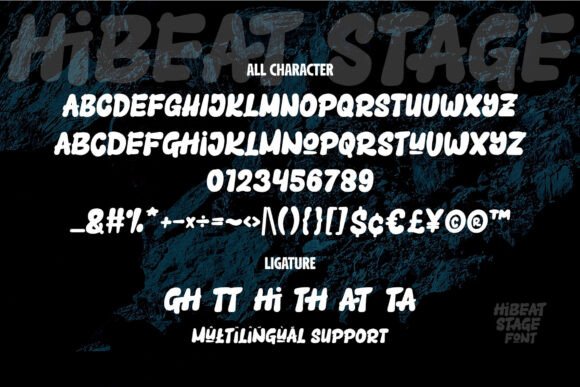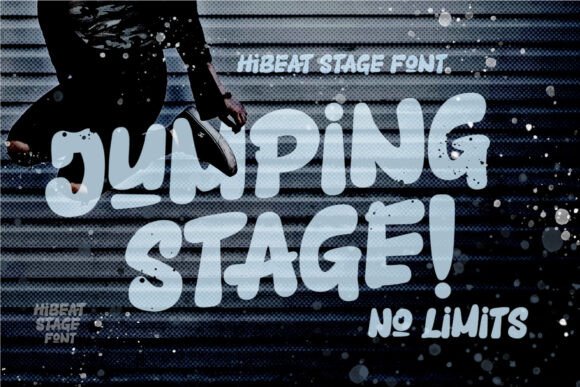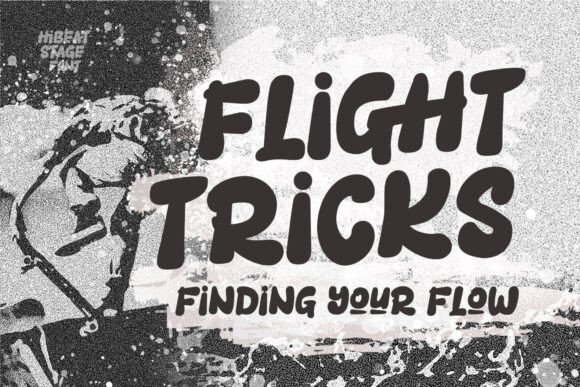
Hibeat Stage Font
**Hibeat Stage Font** is designed for those seeking a handwritten urban/street typeface. Inspired by graffiti and urban quirkiness, this freestyle handwritten font blends hip-hop and rock aesthetics, mimicking street tagging styles. With its easy-to-read characters, it allows you to create bold, standout typography and eye-catching headlines effortlessly.Unleash your creativity with **Hibeat Stage Font** and embrace urban street style! Perfect for logotypes, book covers, gift cards, greeting cards, posters, merchandise, packaging labels, magazines, and various advertising purposes.